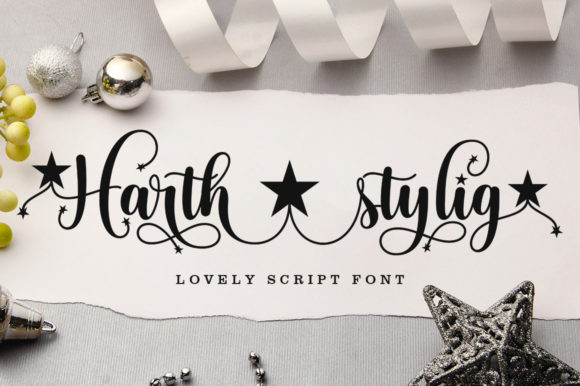
Unleash the Beauty of Harth Stylig: The Calligraphic Masterpiece for Wedding Logos
In the realm of design, fonts hold the power to transform ordinary words into captivating expressions of art. Among the symphony of typefaces, Harth Stylig stands out as a true masterpiece, a script font meticulously crafted to capture the essence of romance and elegance. Its characters dance gracefully along the baseline, exuding a casual yet refined charm that is sure to leave a lasting impression.
Harth Stylig's versatility knows no bounds, making it the perfect choice for wedding logos. Its innate ability to evoke emotions and create a sense of timeless beauty makes it an ideal companion for capturing the essence of this momentous occasion. Whether you envision a classic and sophisticated logo or a whimsical and playful one, Harth Stylig effortlessly adapts to your creative vision.
With Harth Stylig, you'll not only create a logo that captures the essence of your special day but also one that reflects the unique personality of your love story. Its PUA encoding ensures effortless access to a world of glyphs and swashes, empowering you to add intricate details and flourishes that elevate your logo to a work of art.
Harth Stylig is more than just a font; it's an invitation to embark on a journey of creativity, where your imagination knows no limits. Let your artistic spirit soar as you explore the endless possibilities that await you. With Harth Stylig as your creative companion, you'll craft a wedding logo that tells a captivating story, a logo that will forever hold a cherished place in your hearts.
Experience the transformative power of Harth Stylig today. Let your logo bloom with elegance, romance, and a touch of whimsical charm. Create a lasting legacy that reflects the beauty of your love story, forever immortalized in the timeless allure of Harth Stylig.